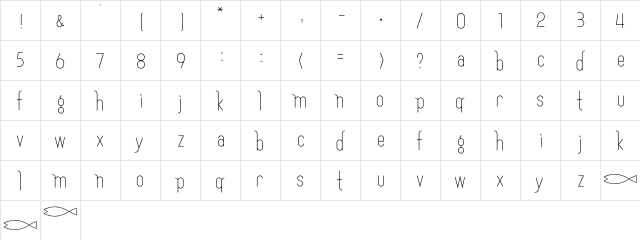
Fish Light Font Preview
Fish Light
Fish Light Font Details
Design Context for Fish Typeface
Fish is a composed and adaptable typeface that performs quietly and consistently across a wide range of design contexts. The delicate stroke weight brings airiness and refinement to layouts.